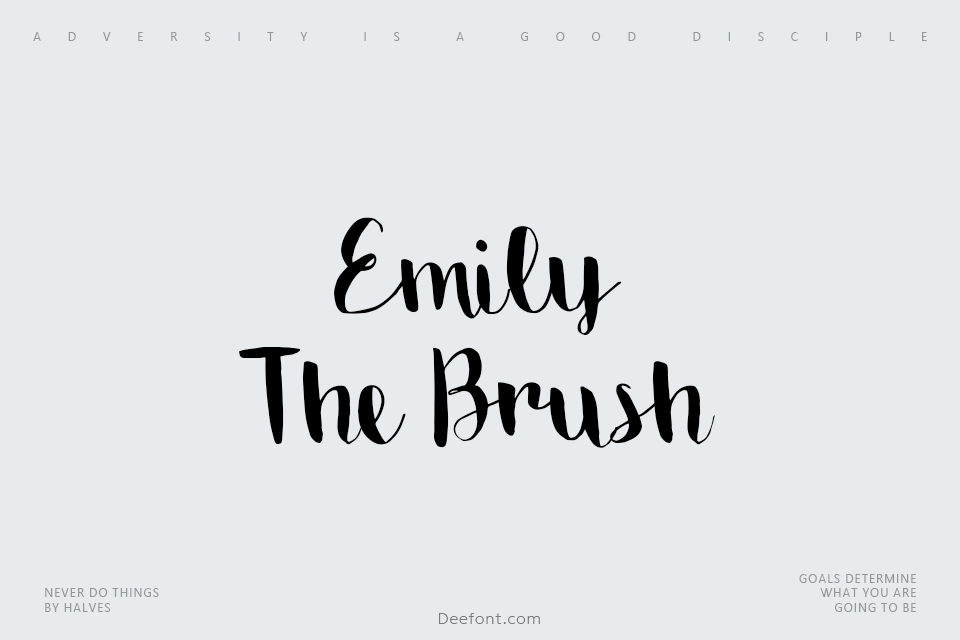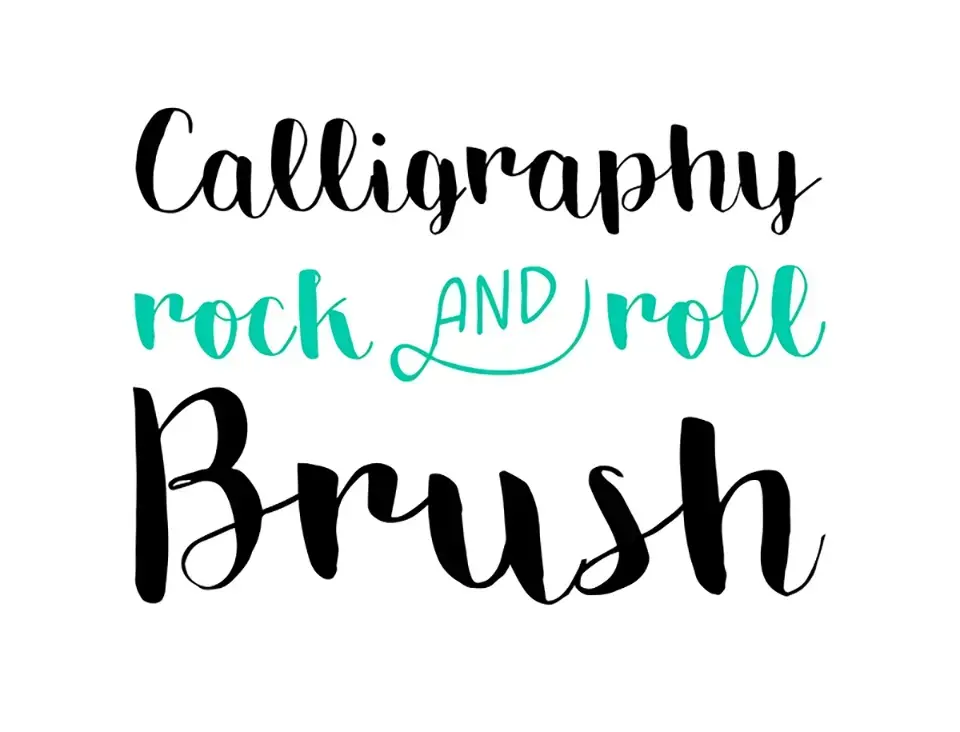
Emily The Brush Font
Emily The Brush is an expressive brush handwriting display font that brings authentic calligraphy charm to modern design. Inspired by traditional lettering techniques and hand-drawn with Talens Brush Pen 700, this typeface features unconventional shapes with alternative glyphs through OpenType functions. Perfect for creating elegant yet playful typography in advertising, posters, greeting cards, and creative projects where personality meets sophistication.